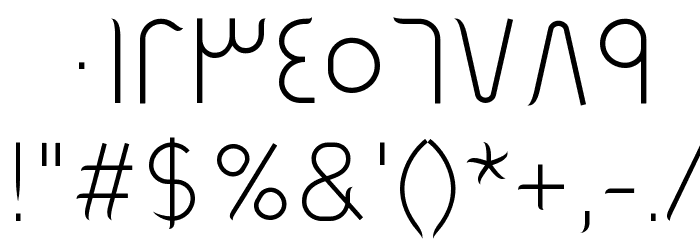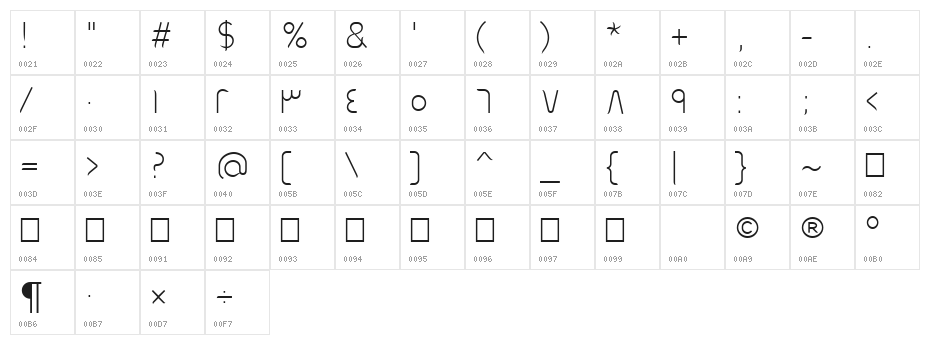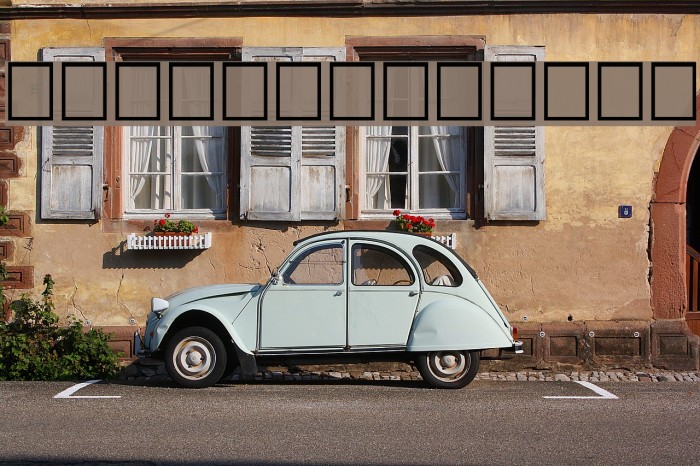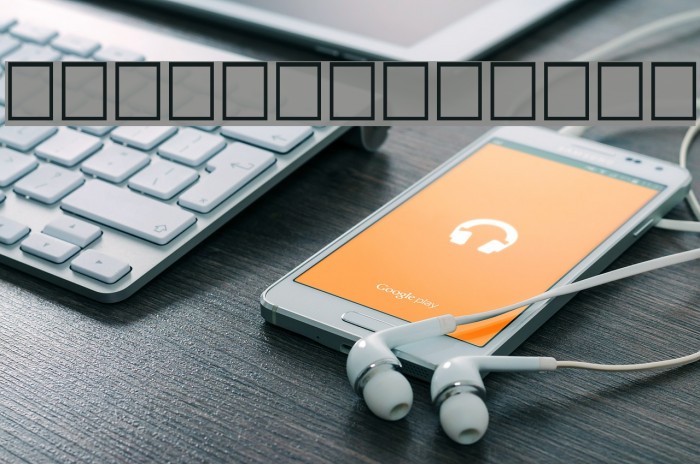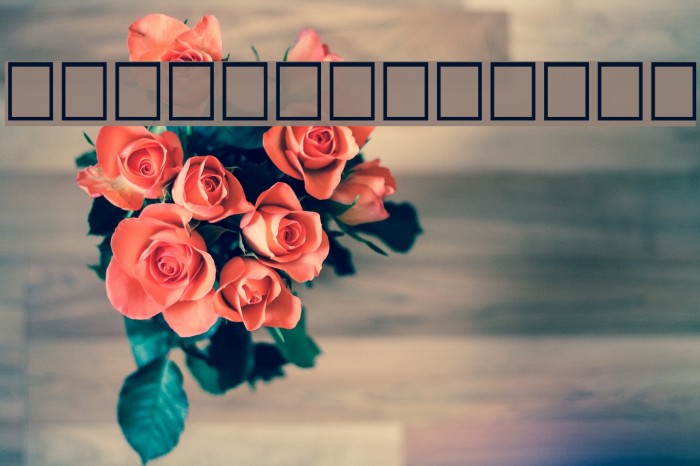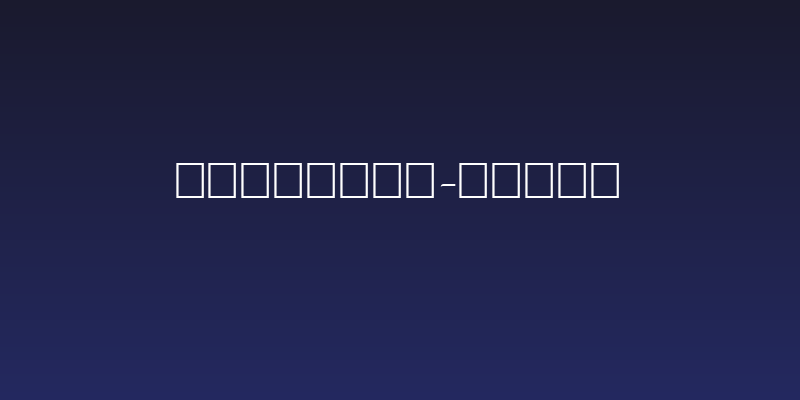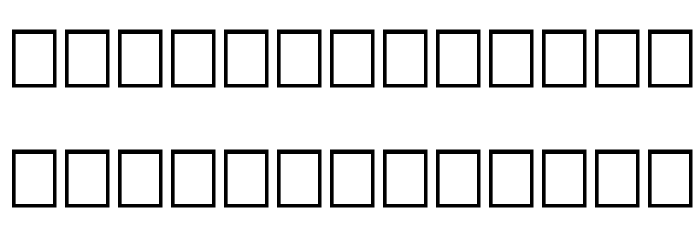
Mehrajan-Light Font
Mehrajan-Light Description
This font features a modern, clean design with a light weight that emphasizes simplicity and elegance. The characters are crafted with smooth curves and a consistent stroke width, providing a harmonious and balanced appearance. The numerals and special characters maintain the same sleek style, ensuring uniformity across all text elements. Its minimalist aesthetic makes it suitable for a variety of applications where clarity and readability are paramount. The font's design is versatile, allowing it to be used effectively in both digital and print media.